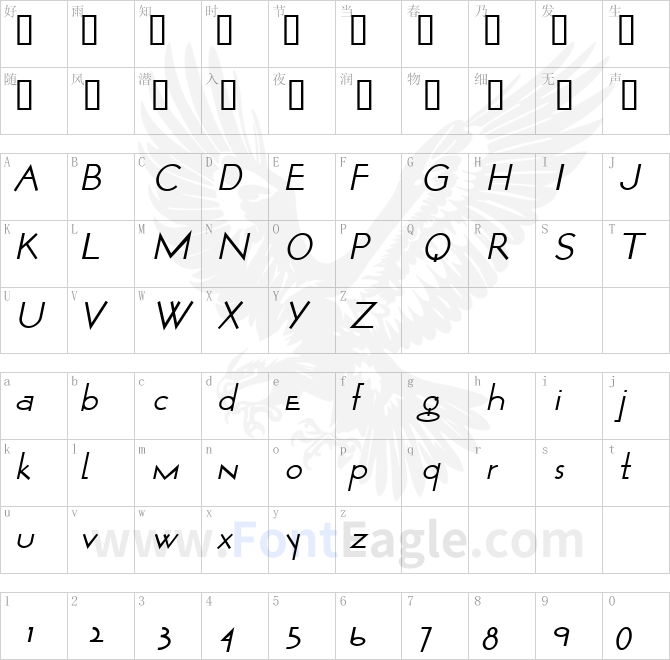
Wurker-Oblique is a great font, widely used in graphic design, single-page menu design, poster design and other fields, and is deeply loved by designers.Wurker-Oblique download.